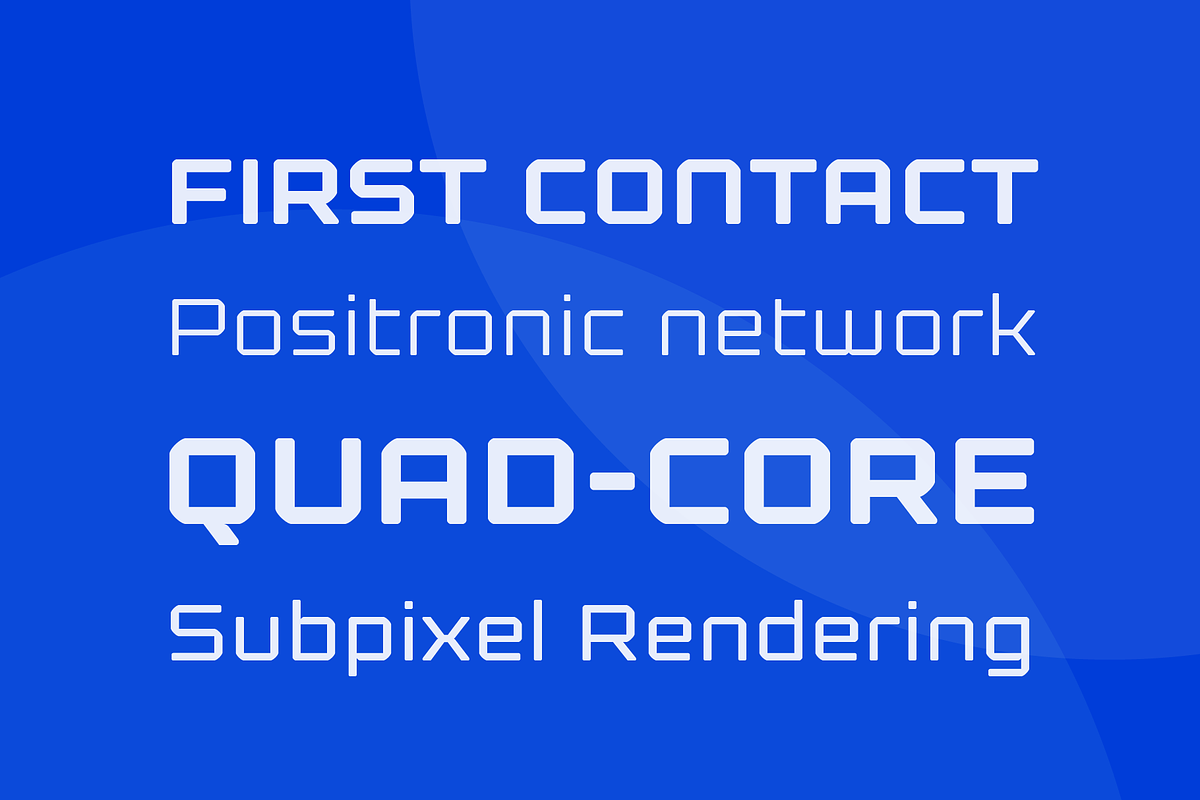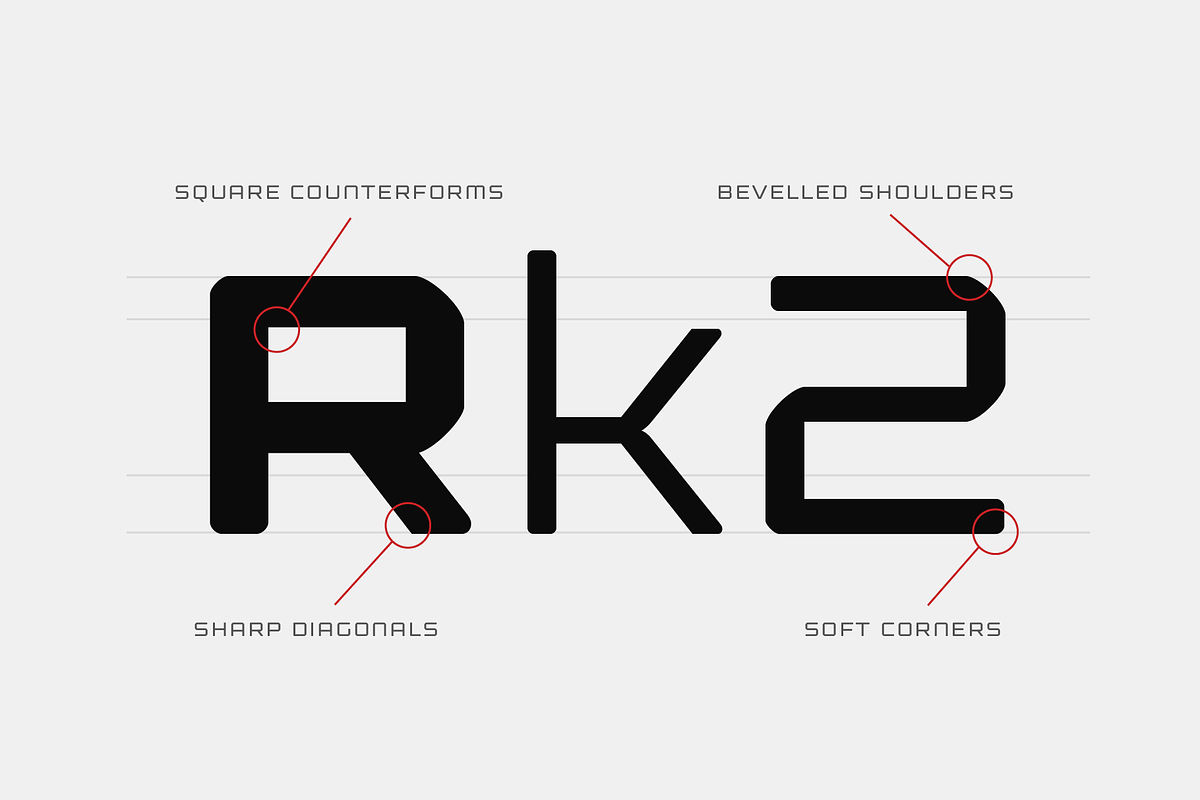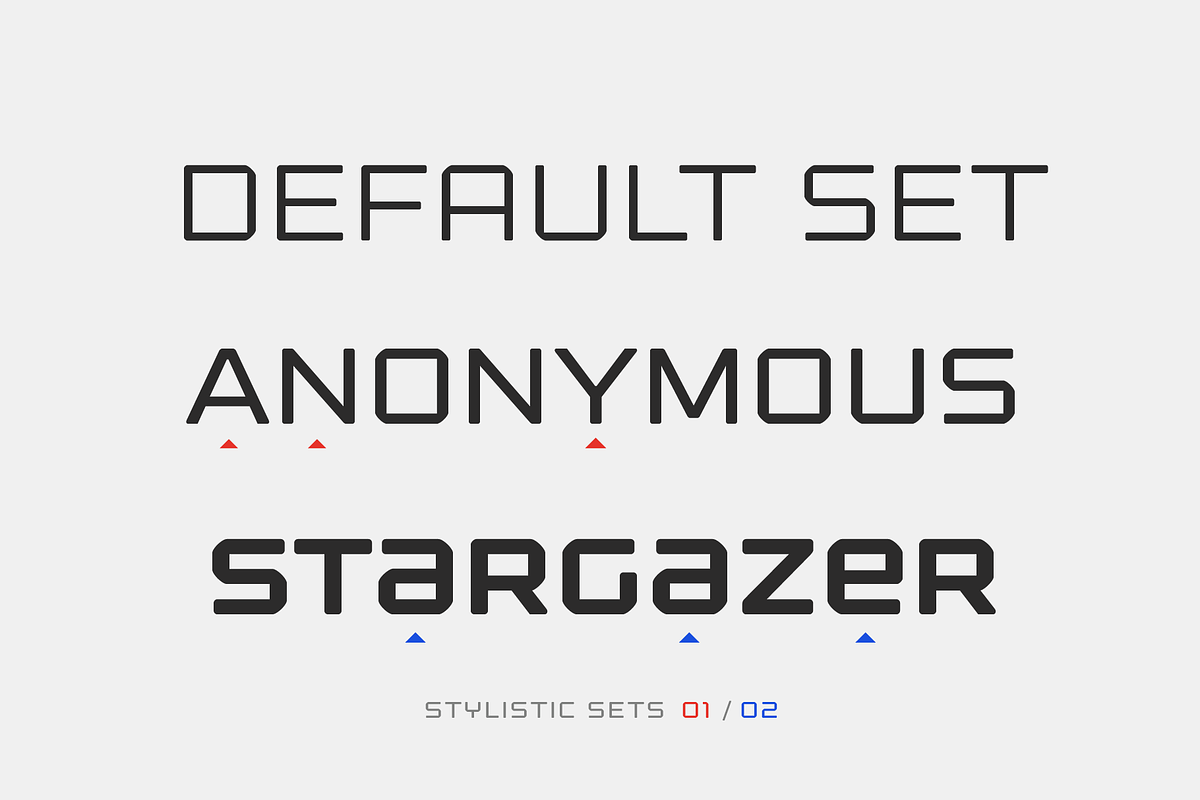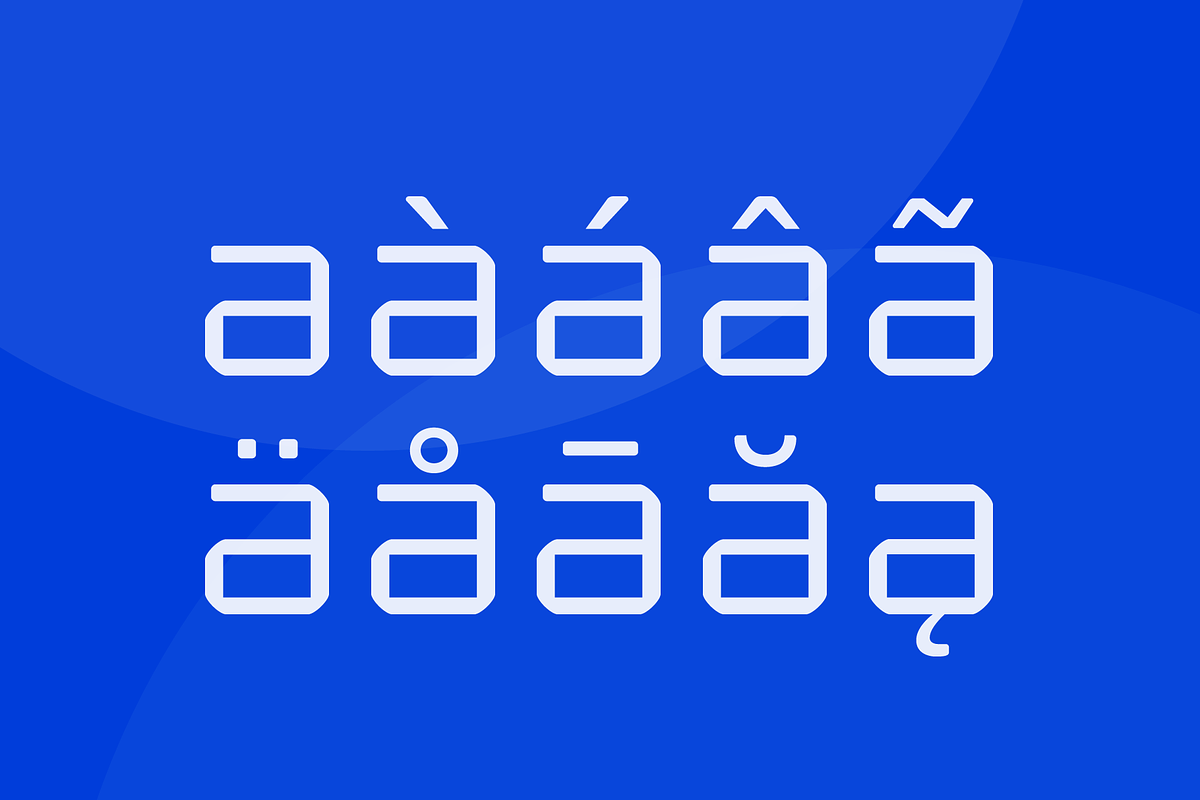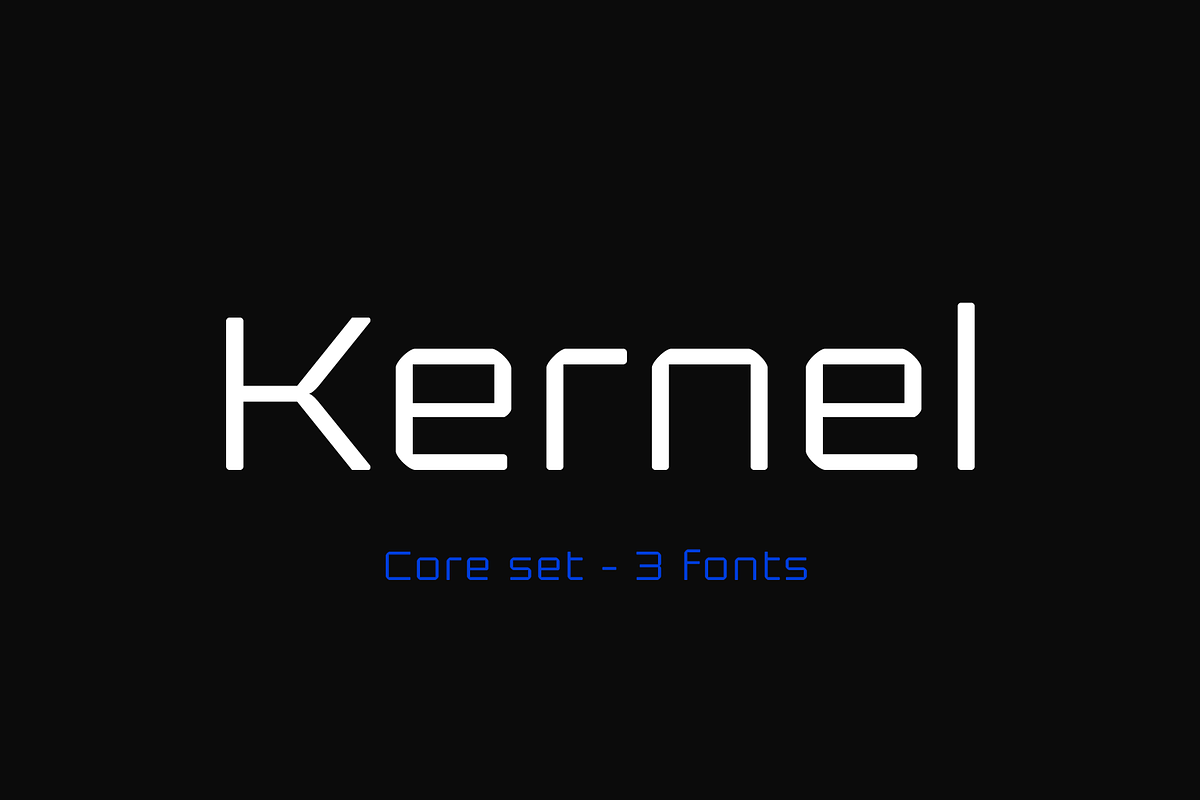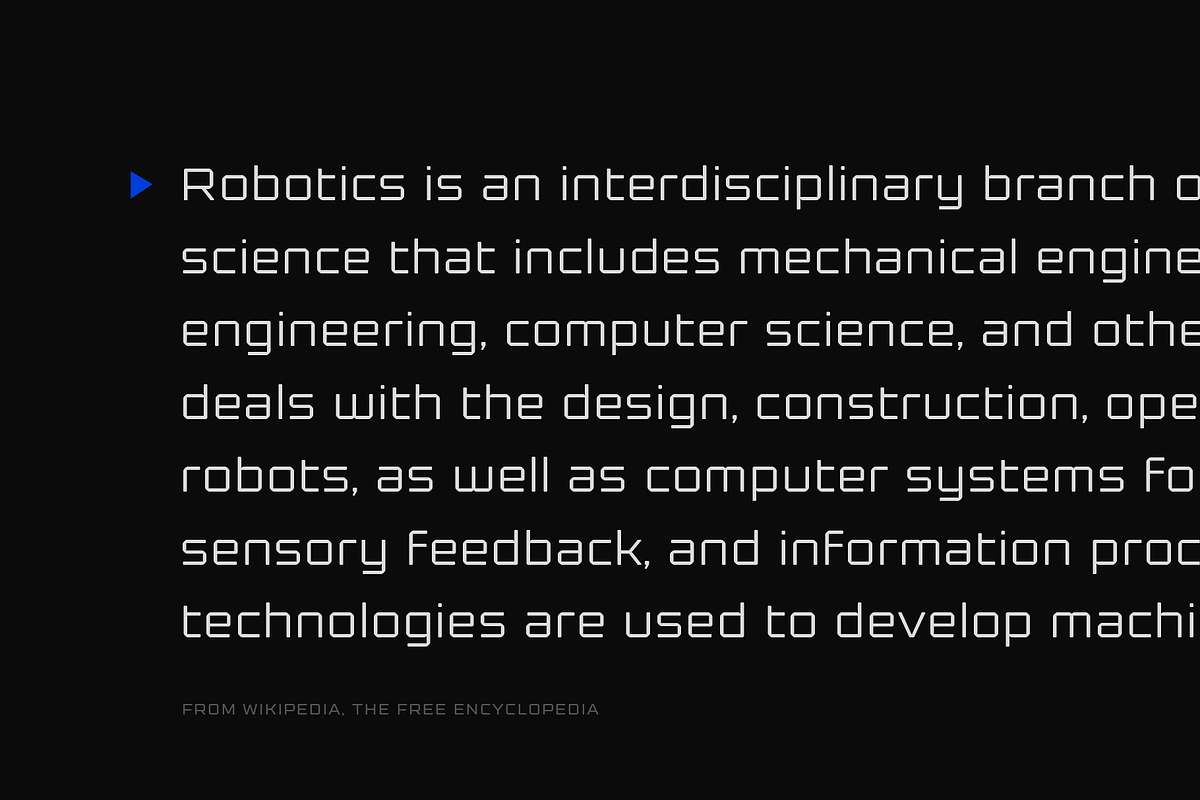
Kernel Core set
This core set includes the 3 most used styles from the Kernel family.
Kernel is a square geometric type family with rounded terminals with square counterforms, which gives the typeface a strong masculine and futuristic look. It is a great choice for applications like innovation, technology, sports and of course, sci-fi !
The fonts, delivered in Opentype format, include diacritics for most European languages and come with a variety of Opentype features : two stylistic sets, tabular figures, case-sensitive forms, fractions and more.